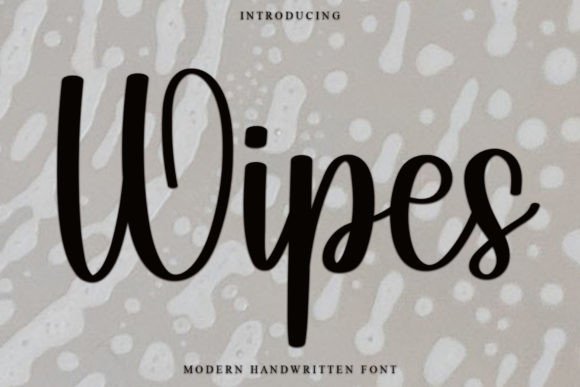
Unleash your creativity with Wipes Font, the exquisite script font that transforms your words into captivating works of art. Designed by PiPi Creative, this elegant handwritten font adds a touch of sophistication and charm to any project, making it the perfect choice for creating stunning designs that leave a lasting impression.
With its incredibly distinct and timeless style, Wipes Font allows you to express yourself in ways you never thought possible. Each letter flows effortlessly into the next, creating a harmonious visual experience that draws the reader's attention and captivates their imagination. Whether you're designing social media posts, website graphics, or eye-catching logos, Wipes Font is the perfect tool to elevate your designs and leave your audience in awe.
Immerse yourself in the world of Wipes Font and let your creativity soar. Its versatility knows no bounds, making it the ideal choice for a wide range of projects. From heartfelt quotes and inspiring messages to striking headlines and captivating branding, Wipes Font adapts seamlessly to your vision, adding a touch of elegance and personality that sets your designs apart from the ordinary.
Embrace the beauty of handwritten artistry and make Wipes Font your go-to choice for creating designs that resonate with your audience. Its impeccable craftsmanship and timeless style will transform your words into visual masterpieces, leaving an indelible mark on your audience's minds. Experience the magic of Wipes Font today and unlock a world of creative possibilities that await you.